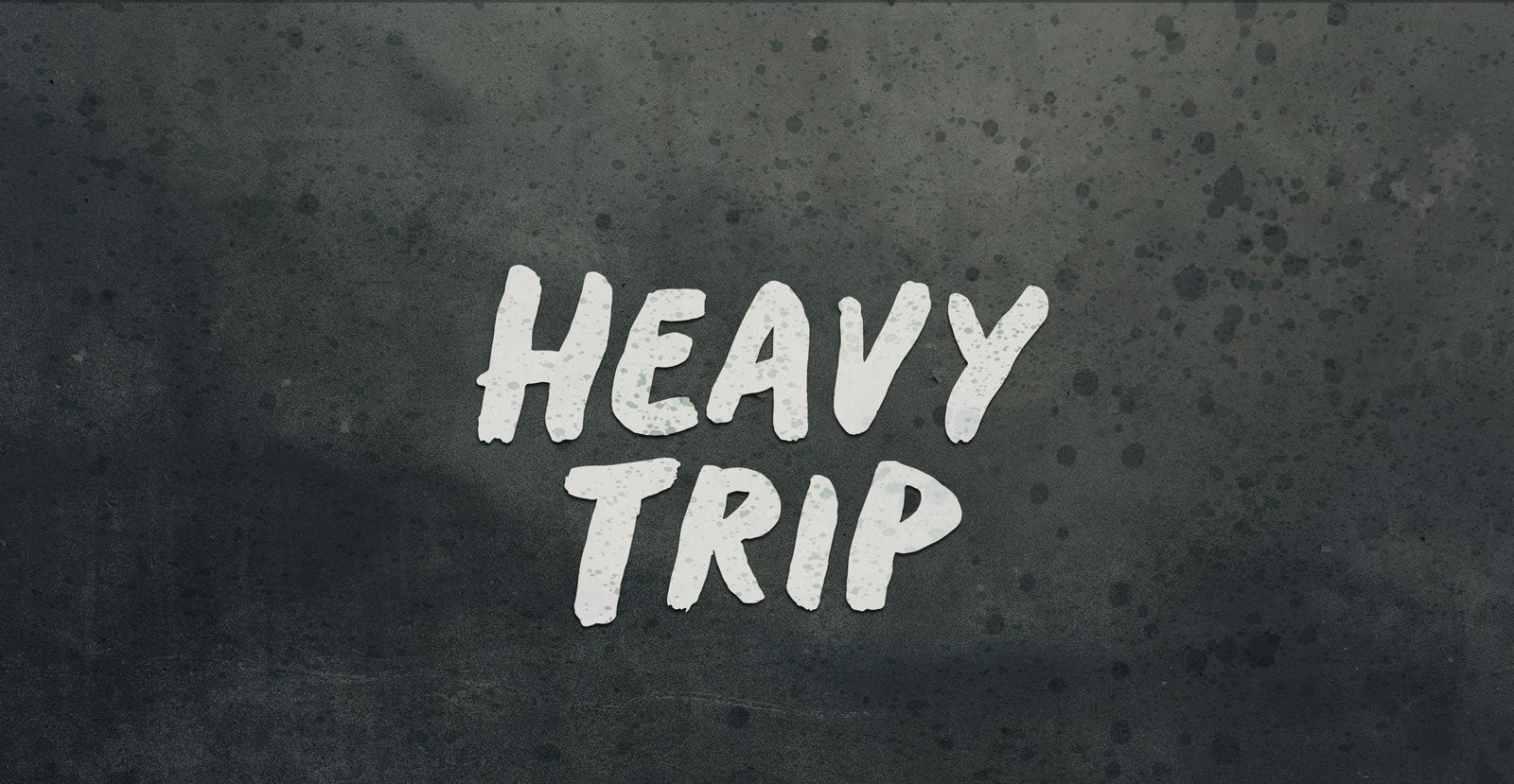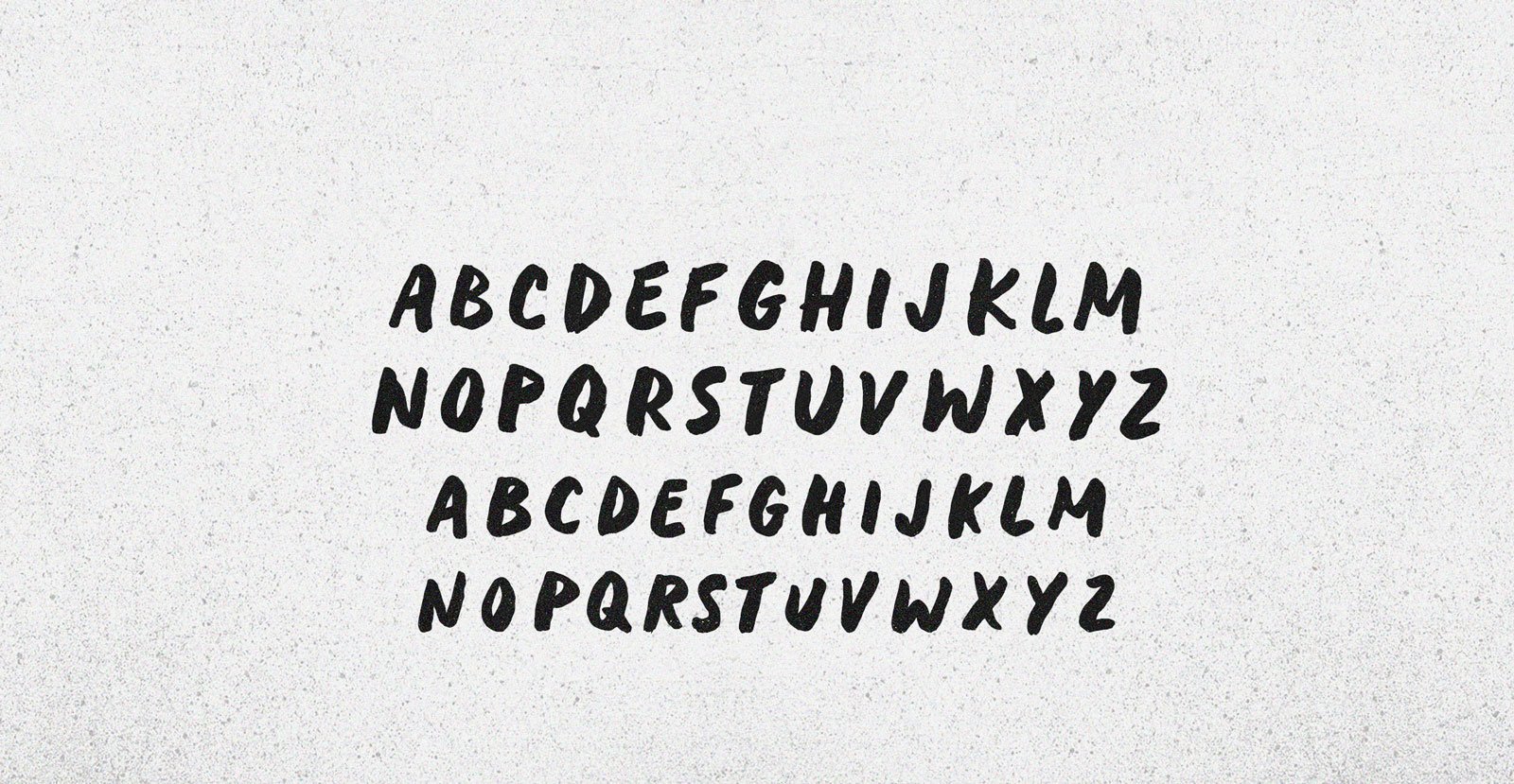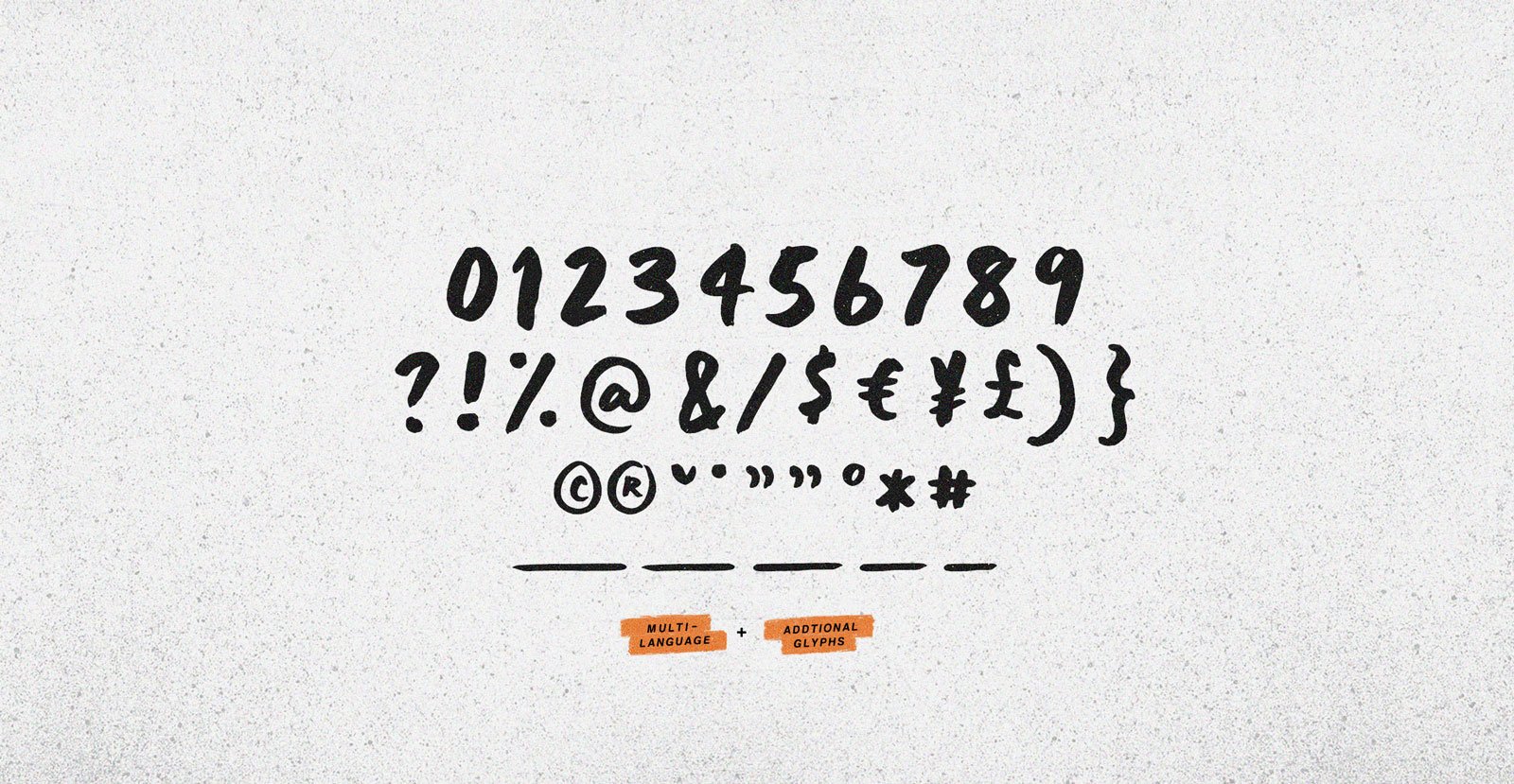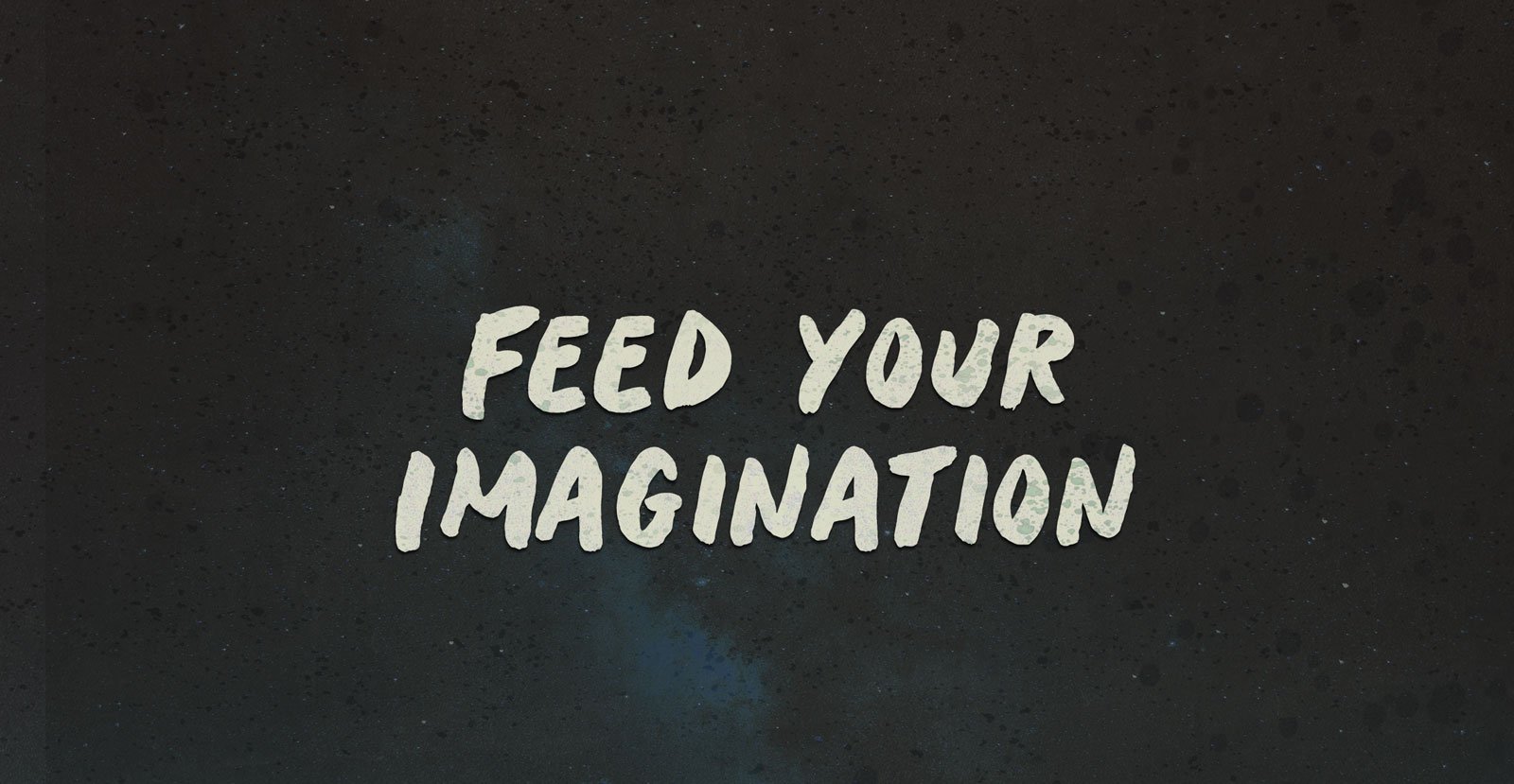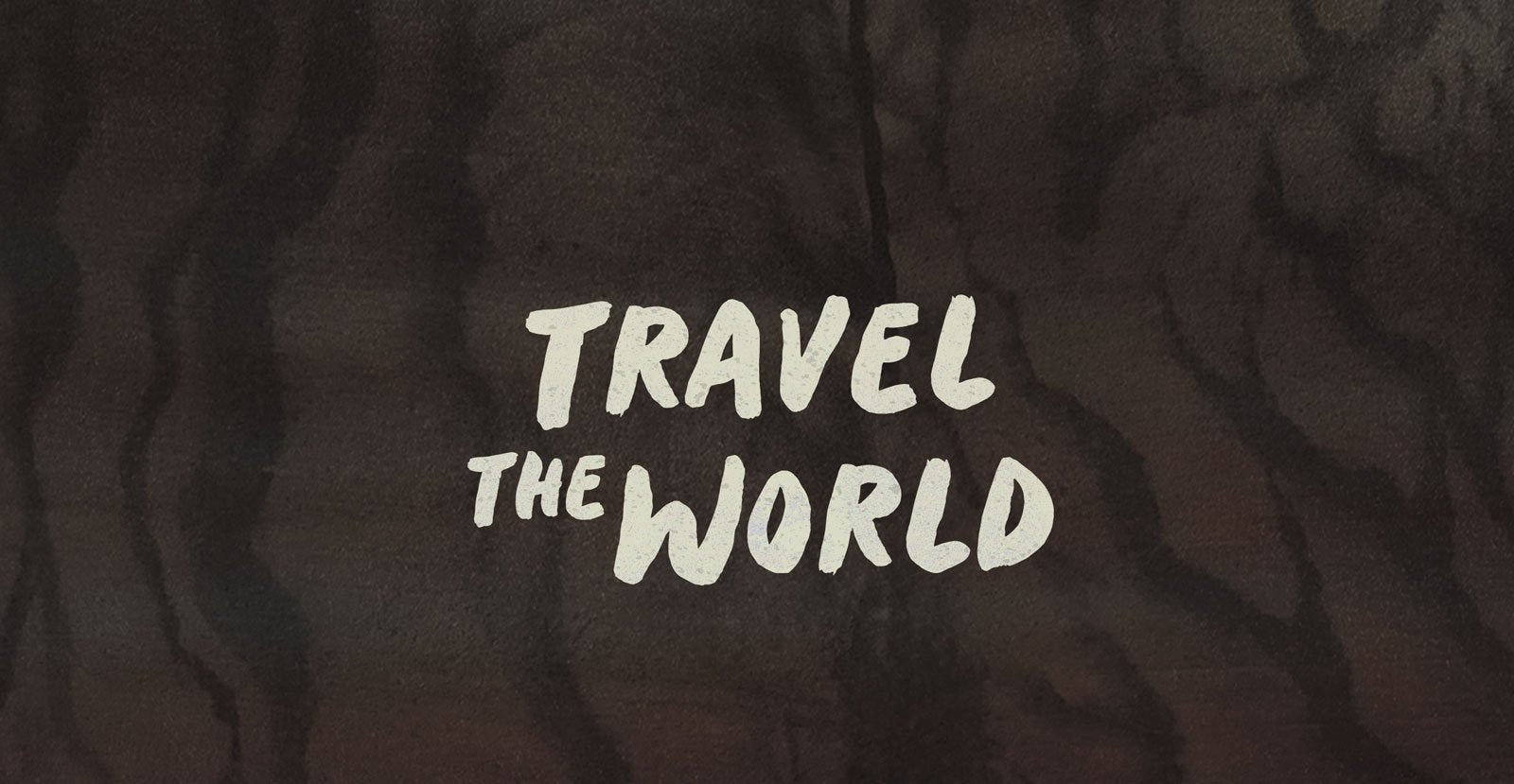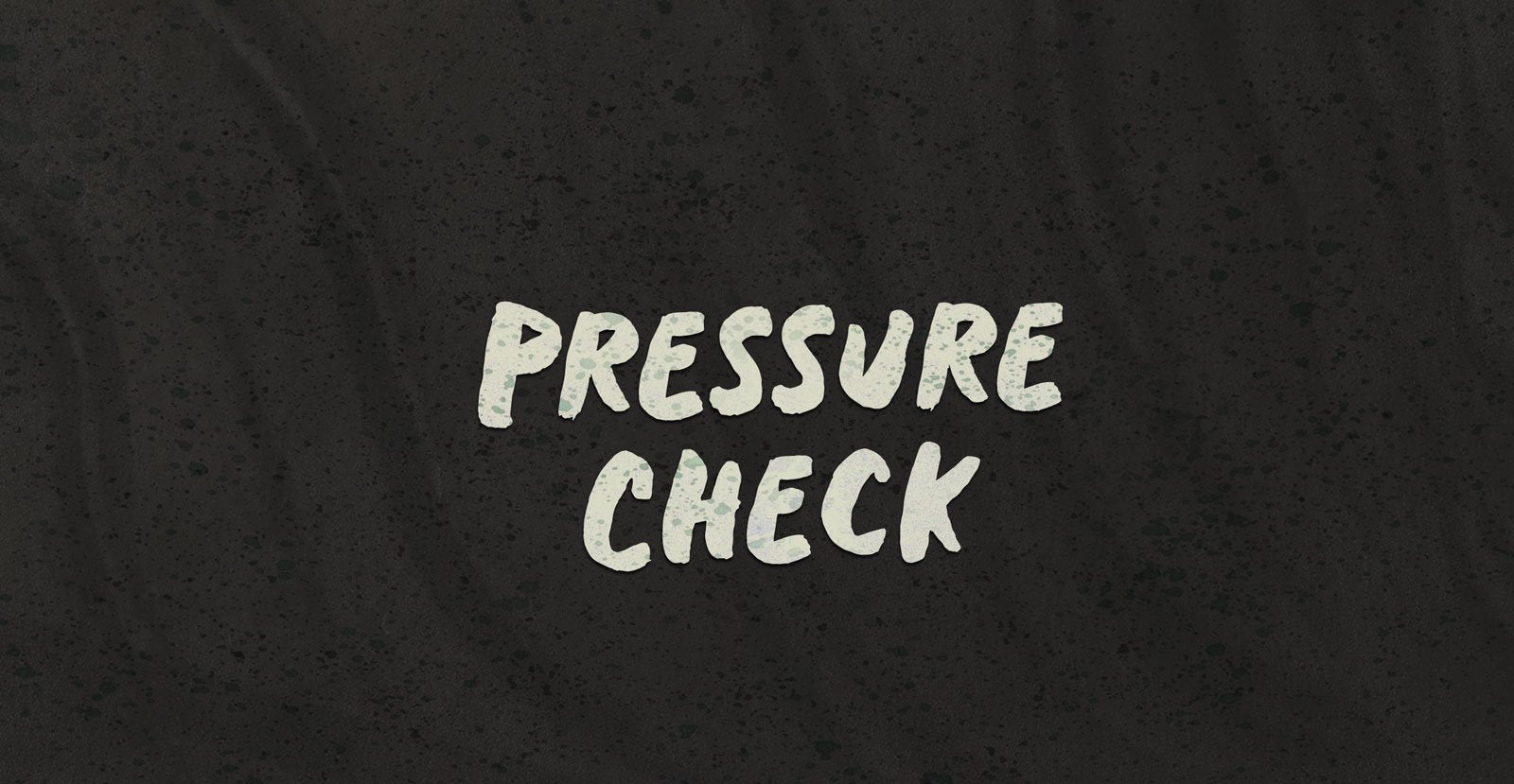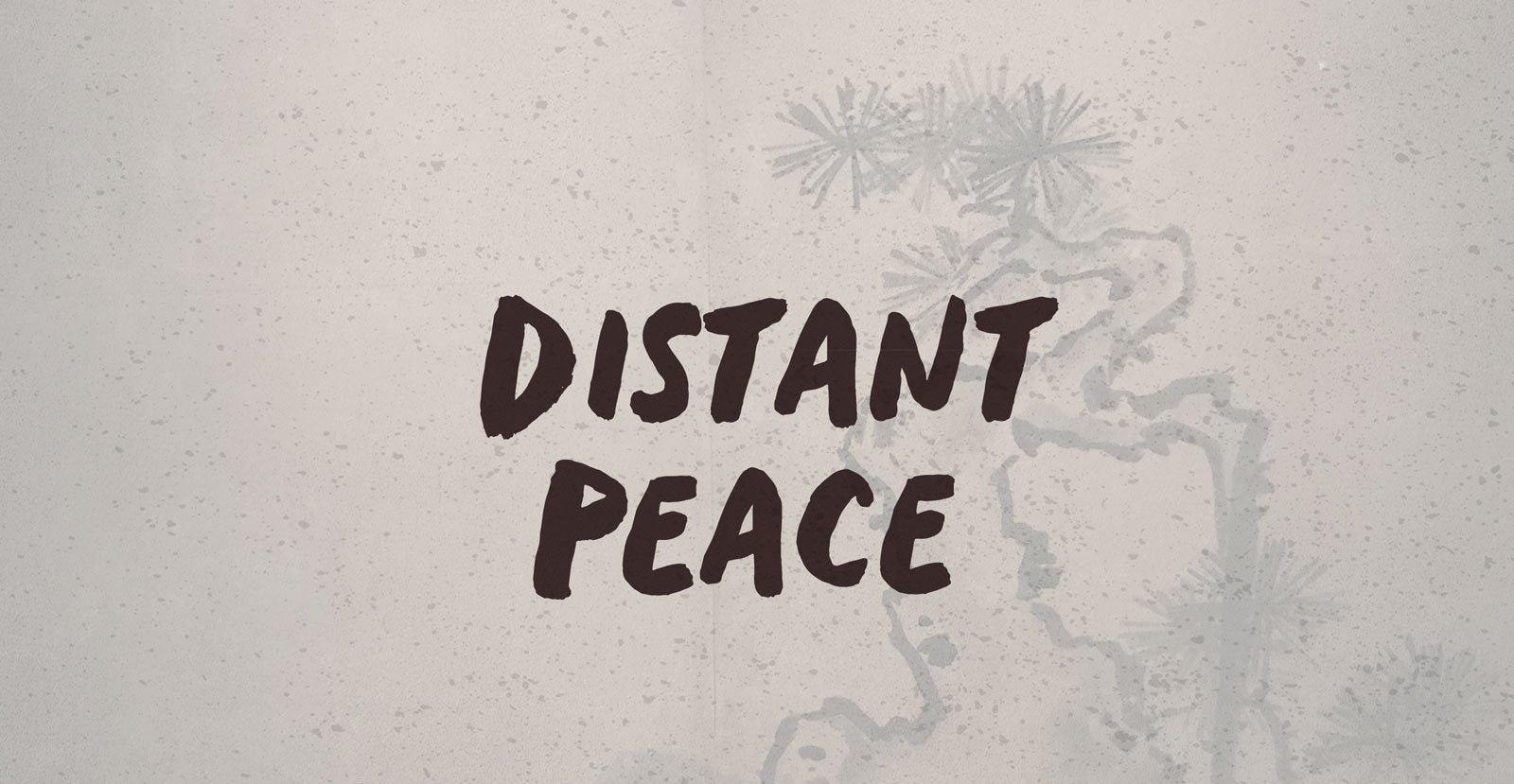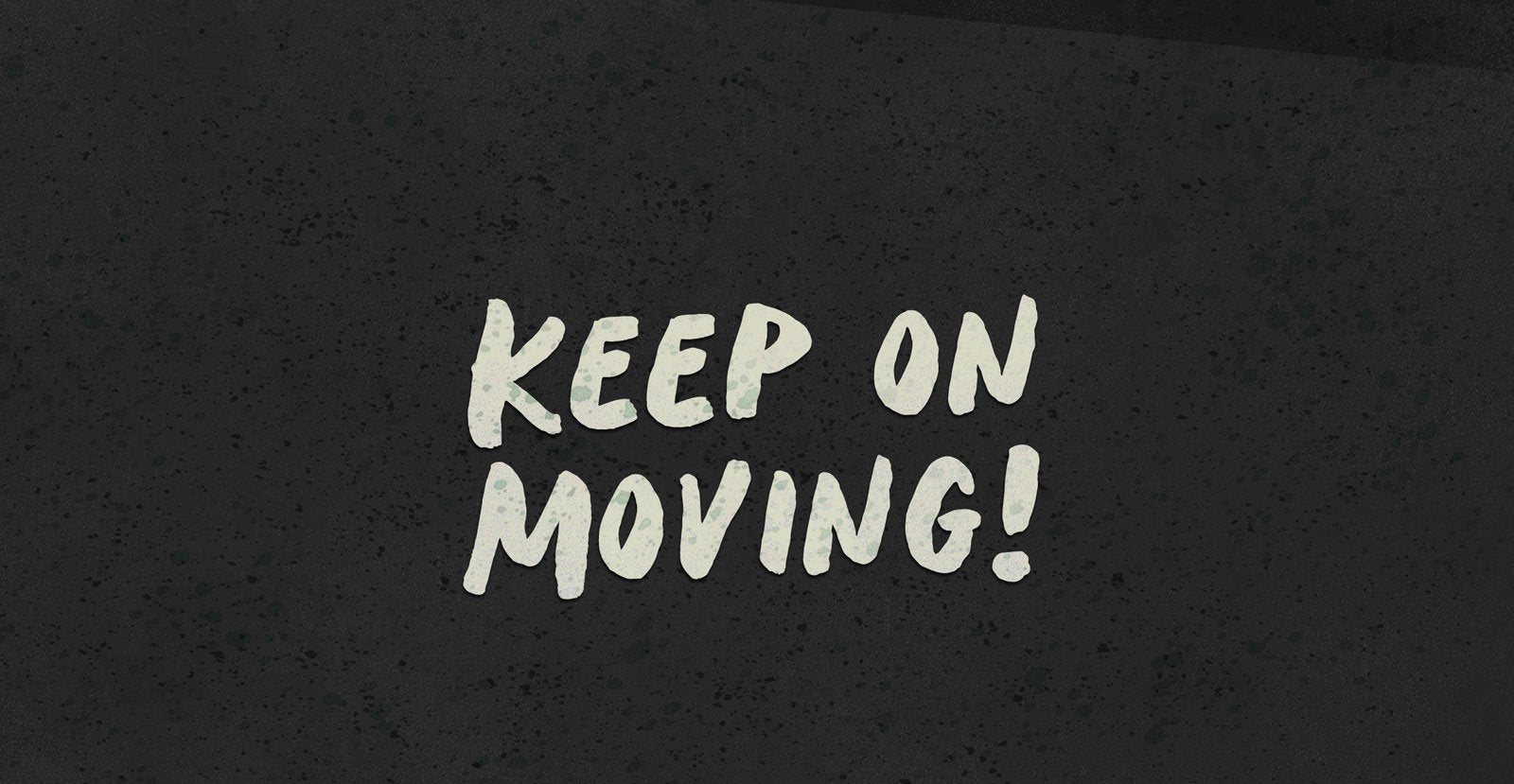
Heavy Trip
Pivots and spatial management, elements of motion as easy as breathing and too precise to be natural--the fingerprints of a machine that indicate its creator. On leaden limbs, on principle, and on a beat down thalamus, flyweights dance where the Heavy Trip.